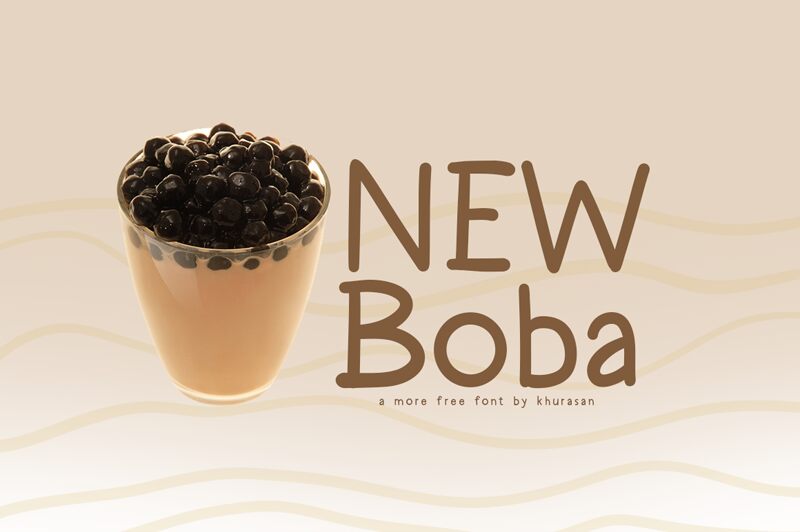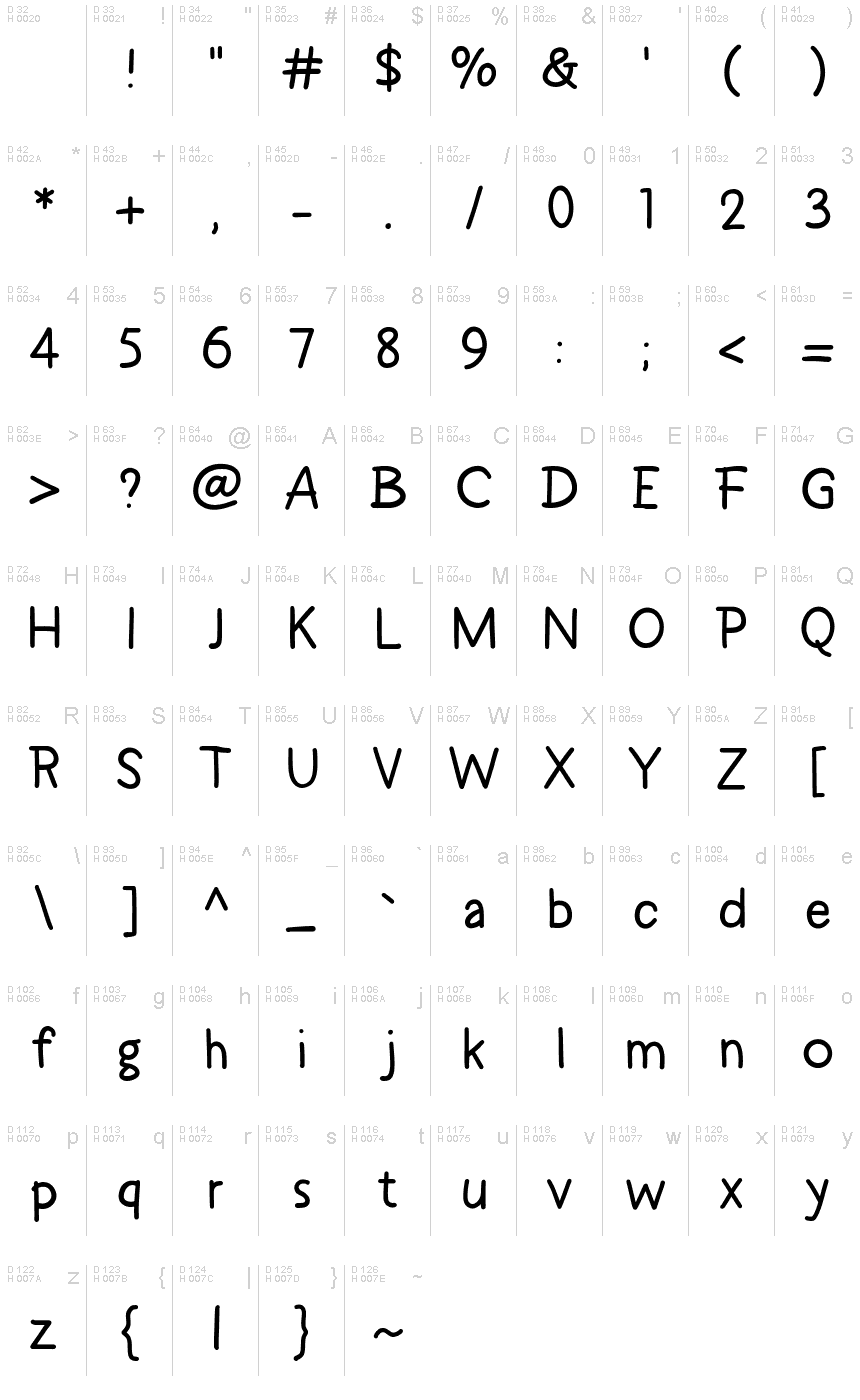
New Boba
New Boba, designed by Khurasan, is a charming semi-light handwritten font that adds a modern touch to any design.
With its cute and playful style, this font is perfect for creating eye-catching posters, captivating logos, stylish magazines, and enticing book covers. Its versatility extends to banners and various other projects where a touch of uniqueness is desired.
Embrace the beauty of New Boba in your creative endeavors and watch as it elevates your designs to new heights.